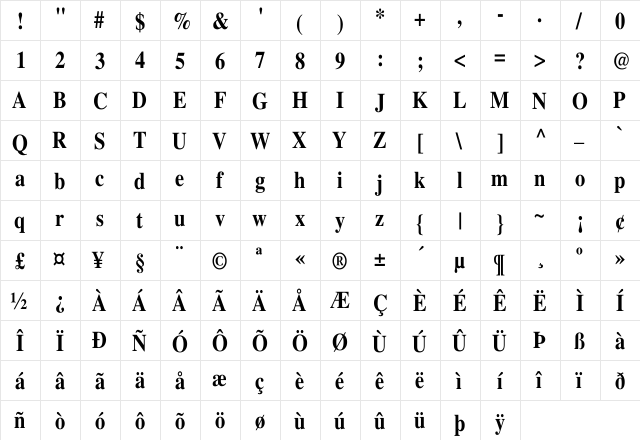
Times-Bold Th Regular
Design Context for Times-Bold Th Typeface
Times-Bold Th offers clean, dependable letterforms without strong stylistic allegiance, making it a practical choice for designers who need flexibility. The heavy weight commands attention and anchors typographic hierarchies.